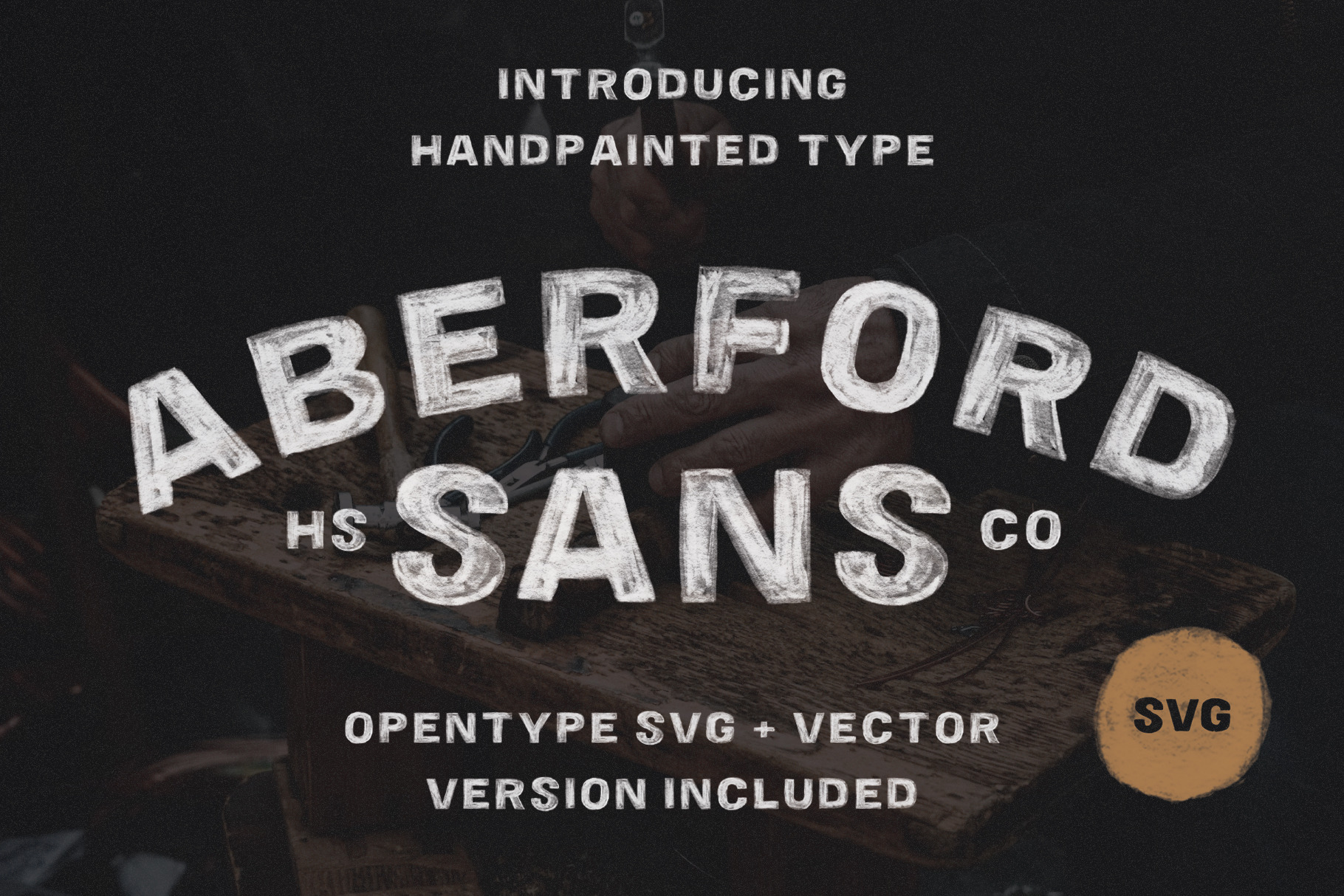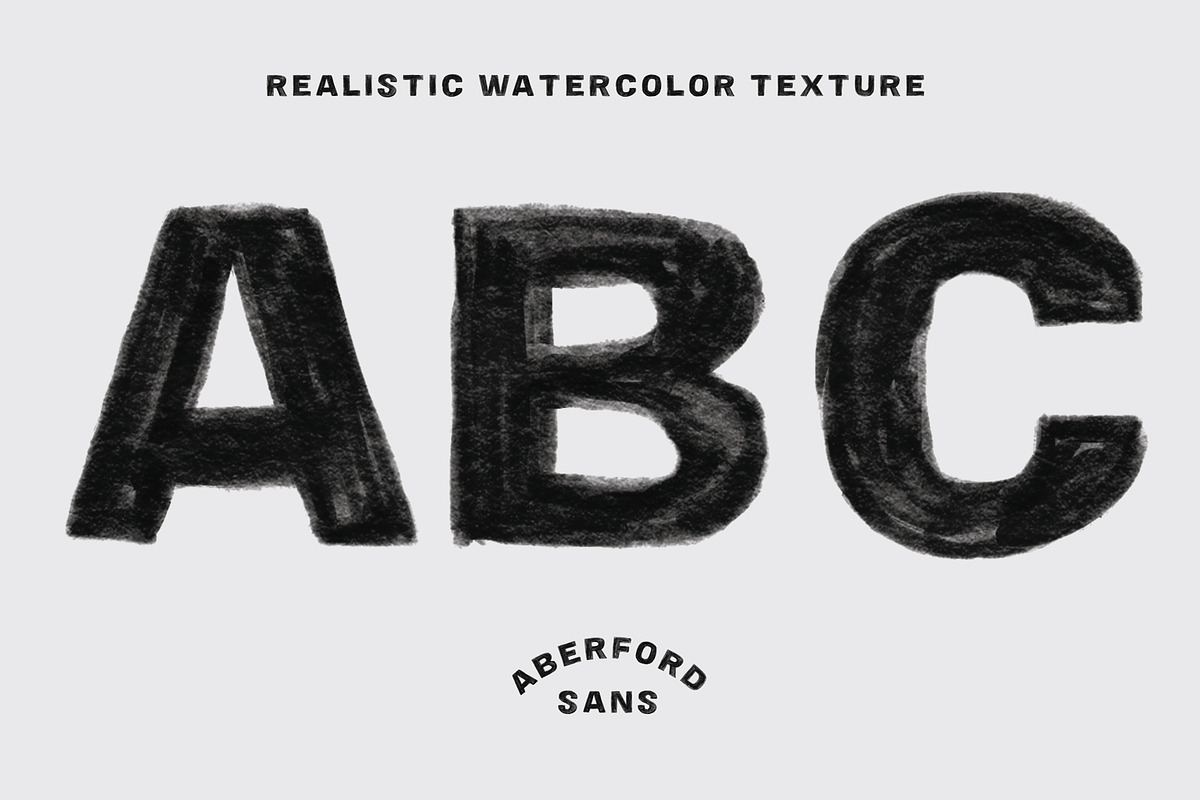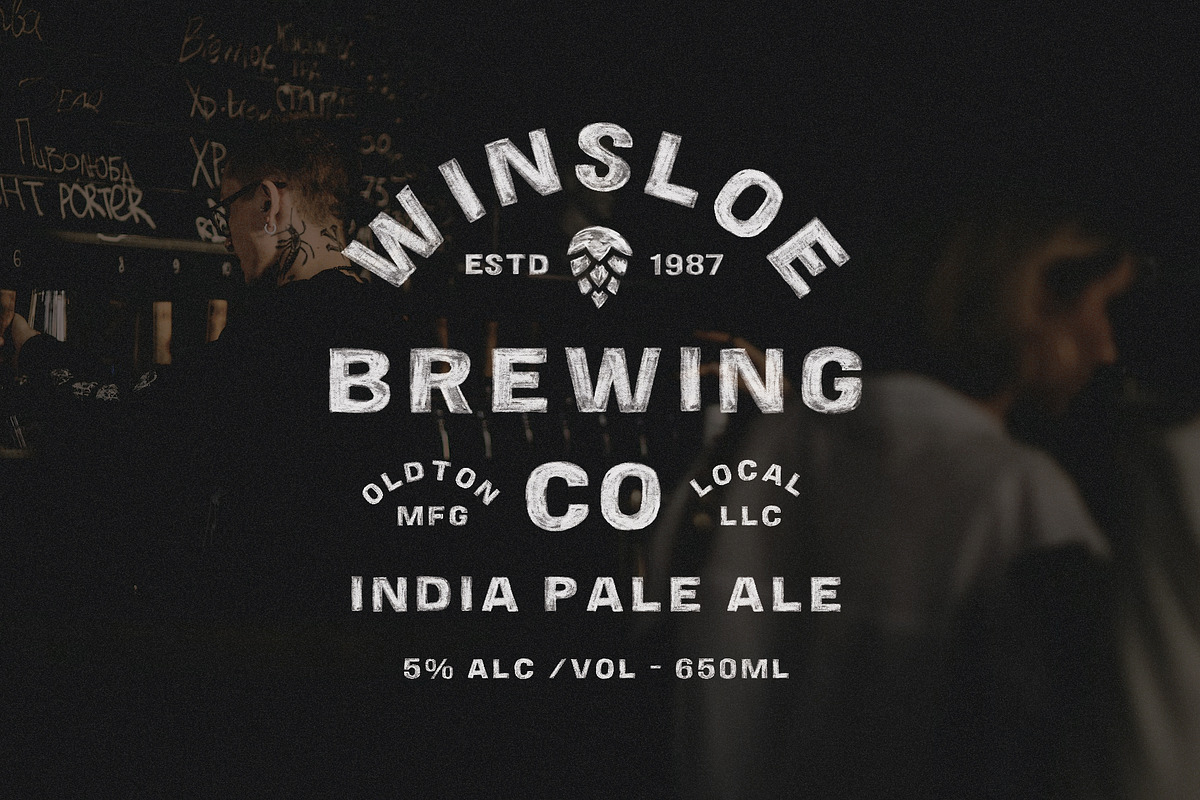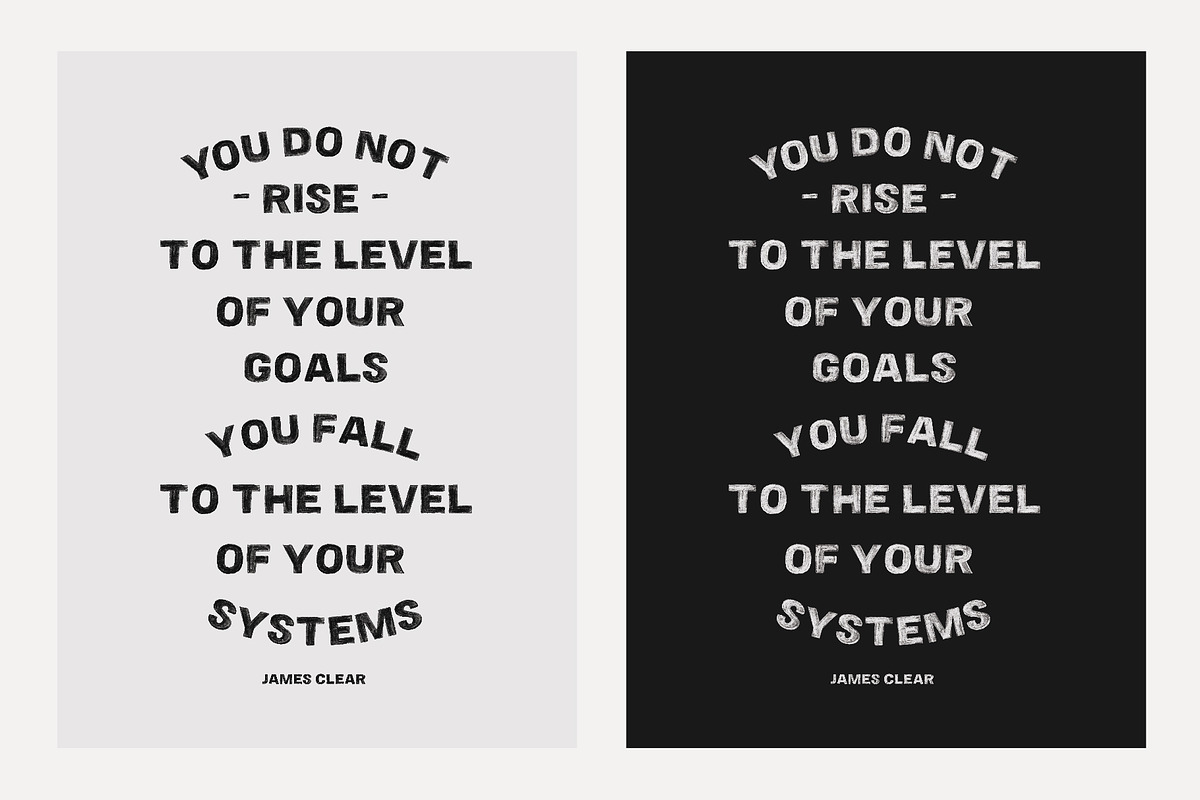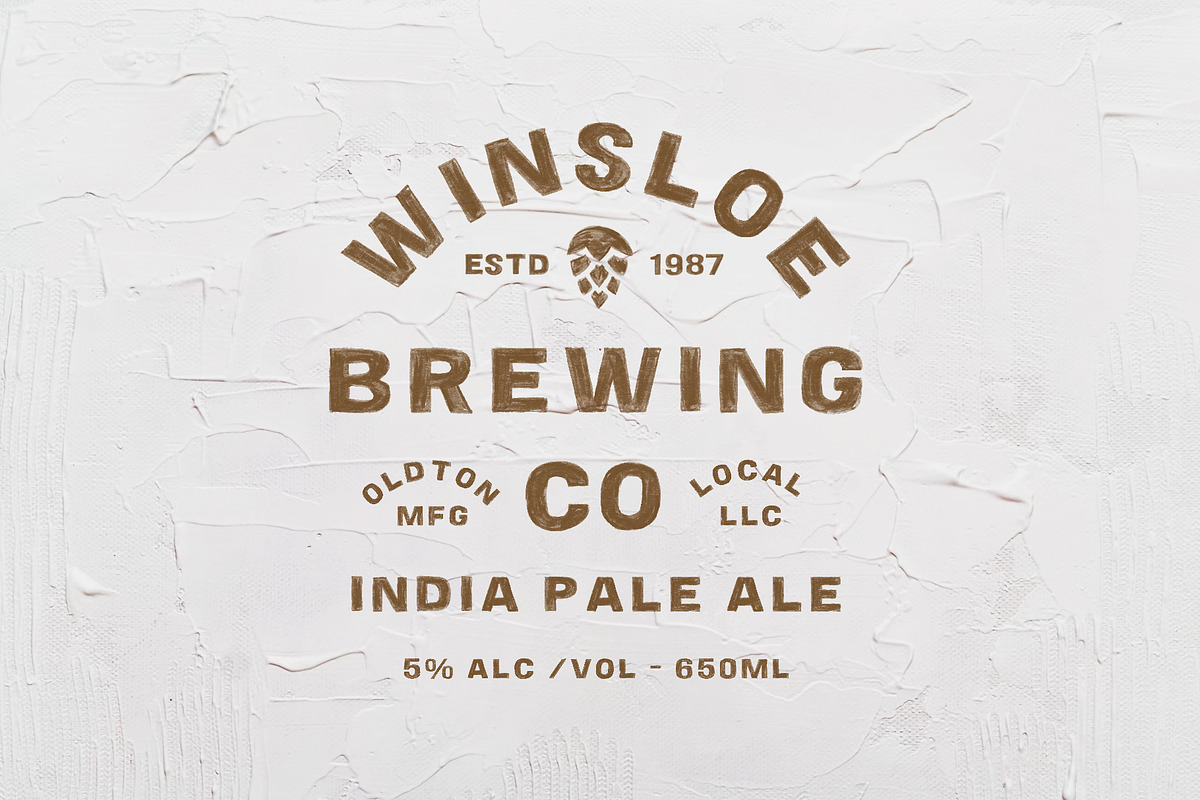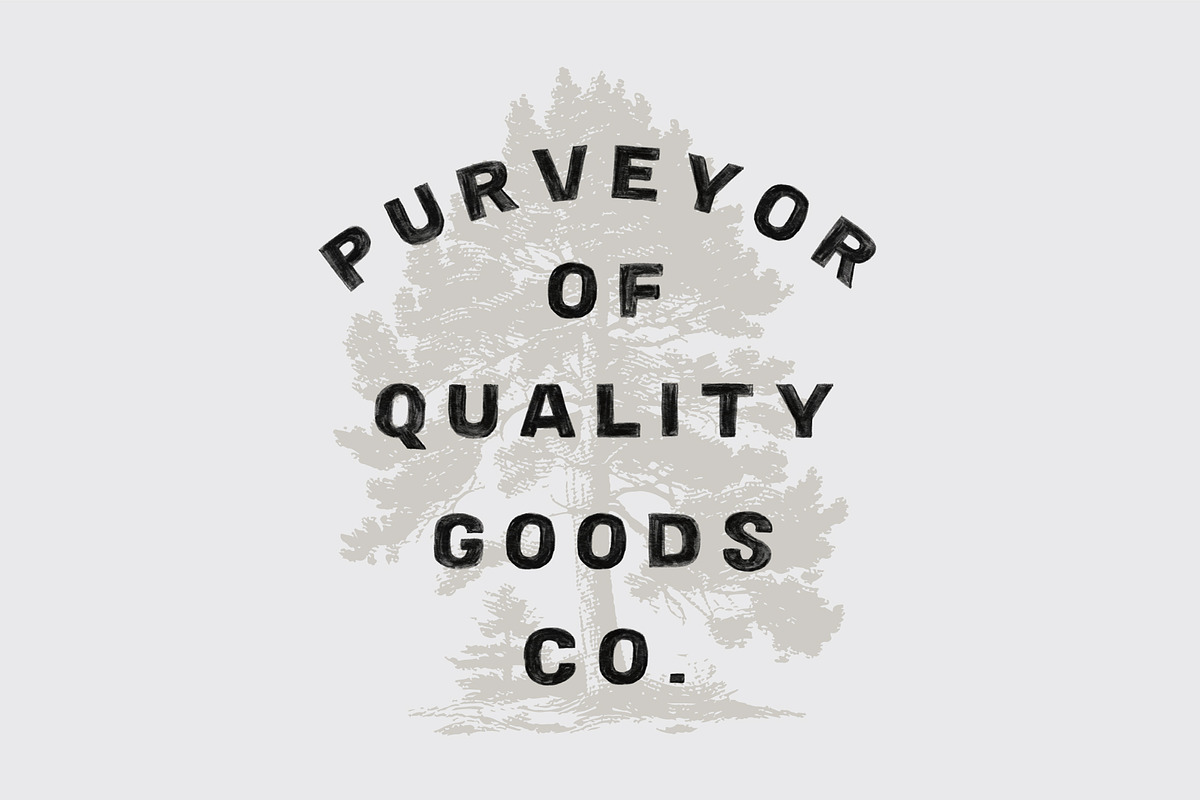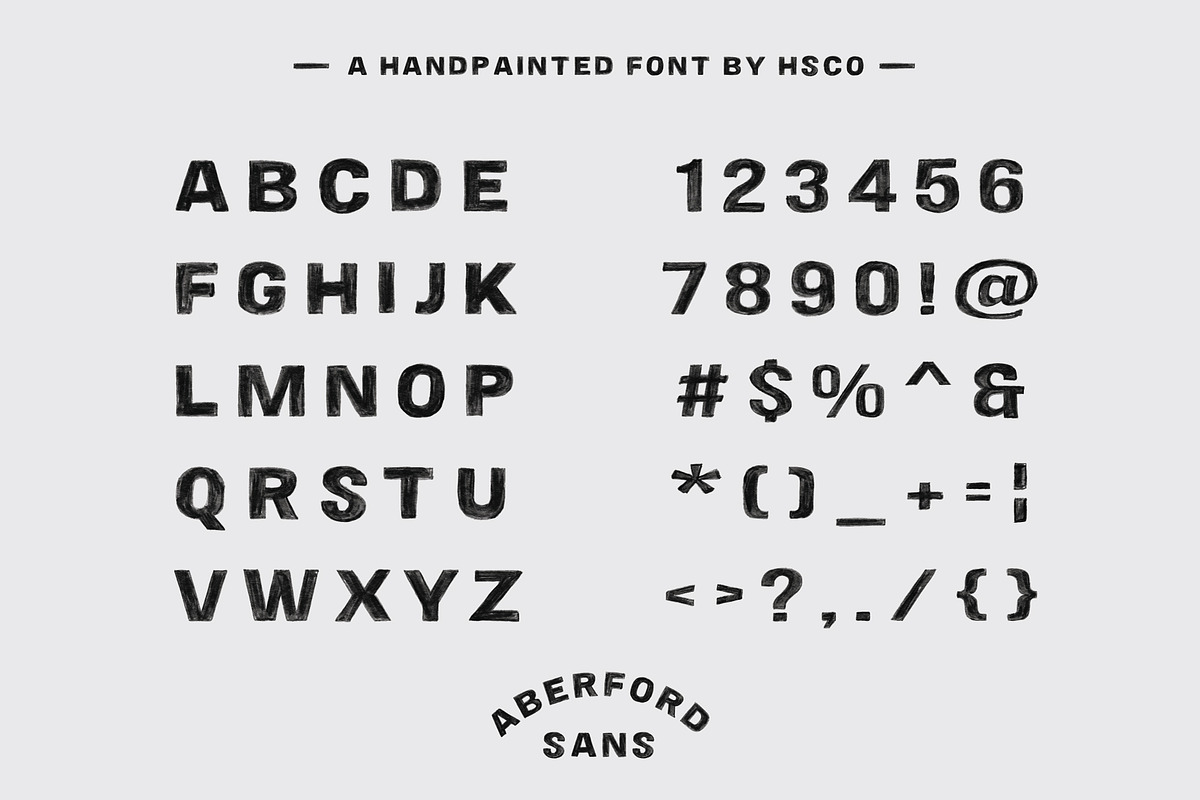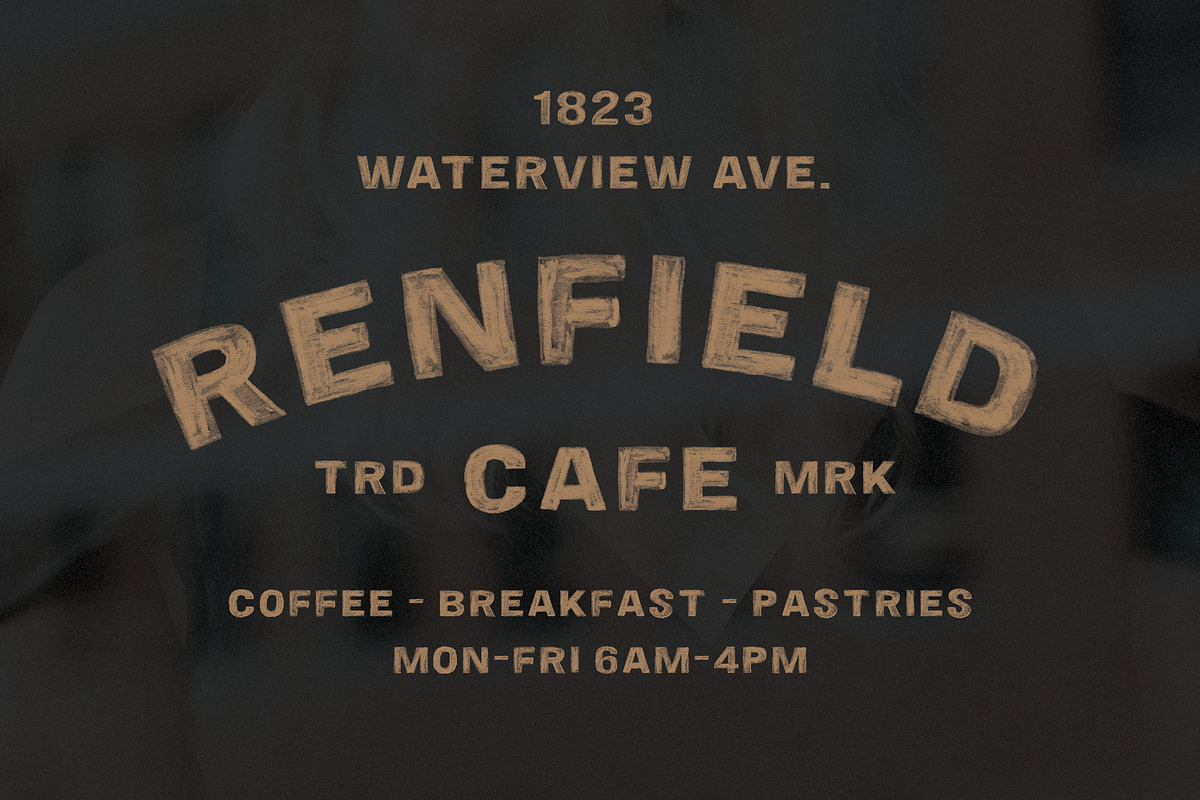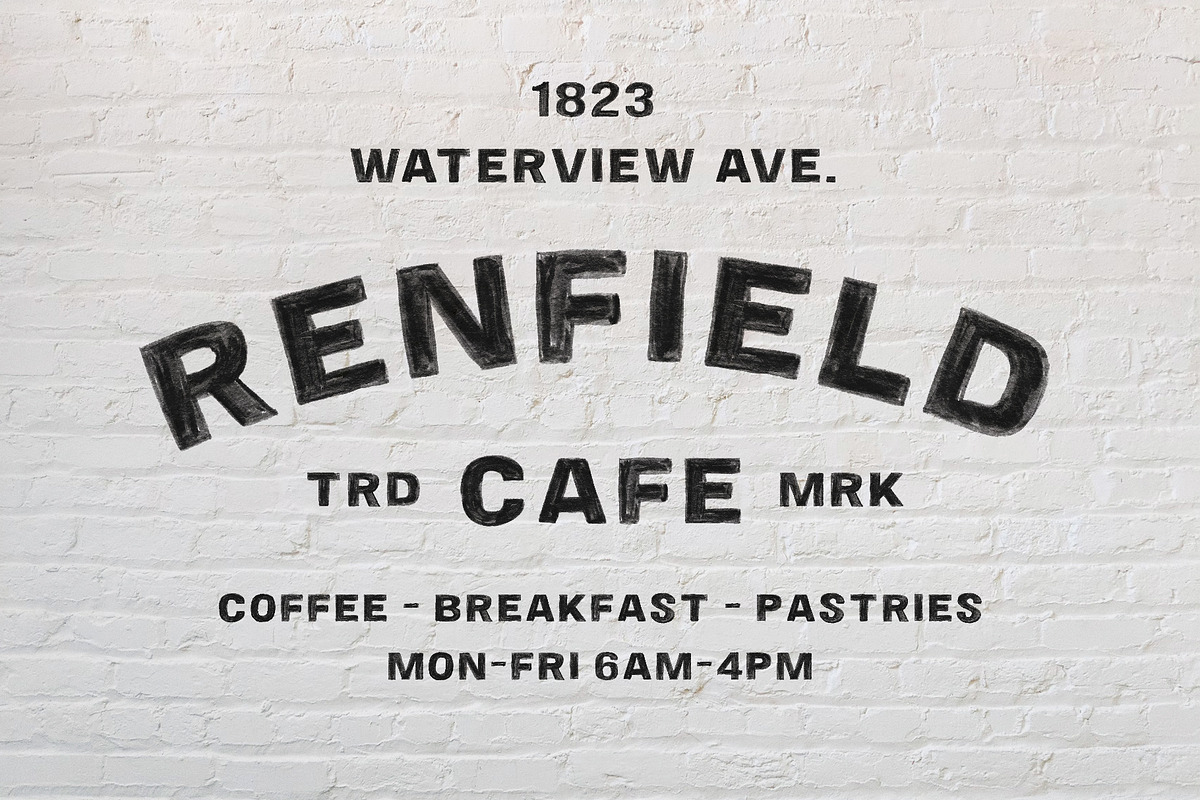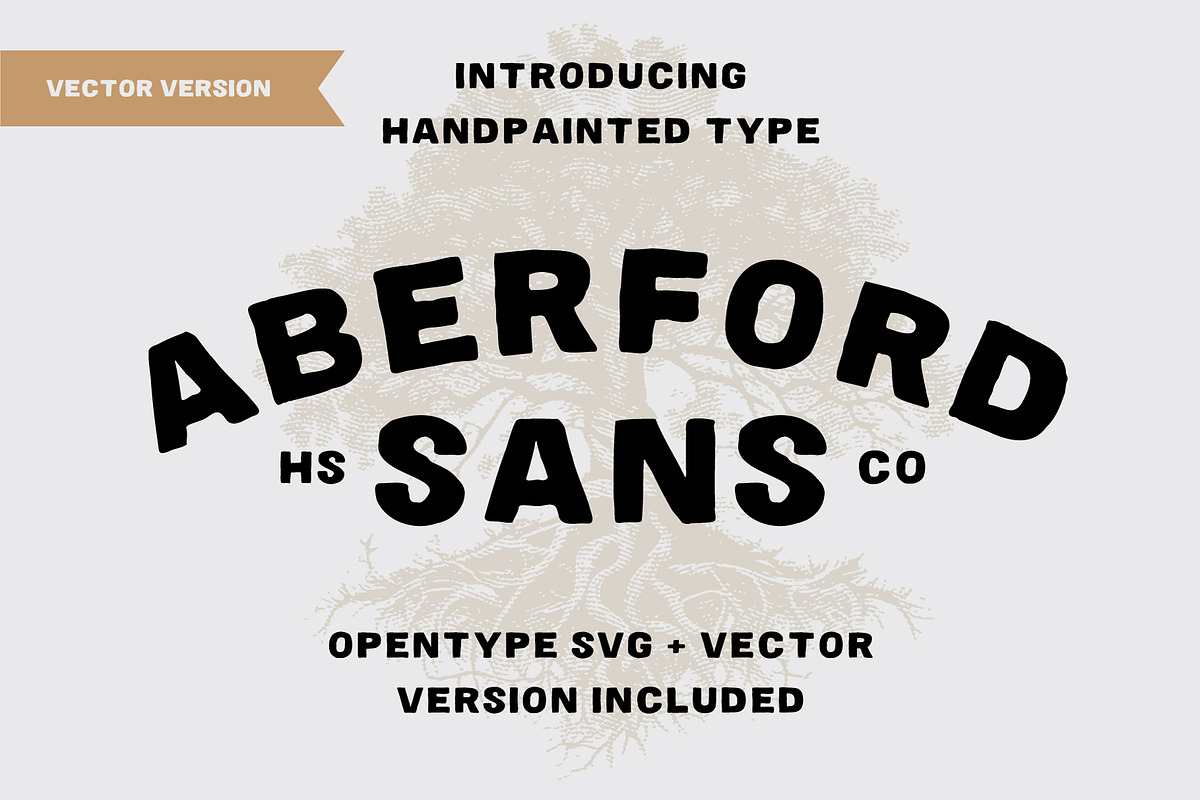
Aberford - SVG Typeface
Aberford
Aberford SVG typeface is a hand painted font that comes complete with an Opentype SVG typeface and a standard vector typeface.